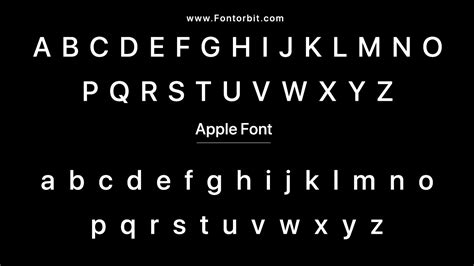
Discover the signature font for Apple. Explore typography details, San Francisco font styles, and design aesthetics used across macOS and iOS interfaces today.